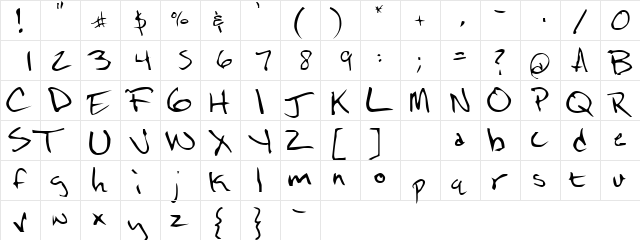
NoteScrawl Regular
Design Context for NoteScrawl Typeface
NoteScrawl is a composed and adaptable typeface that performs quietly and consistently across a wide range of design contexts.